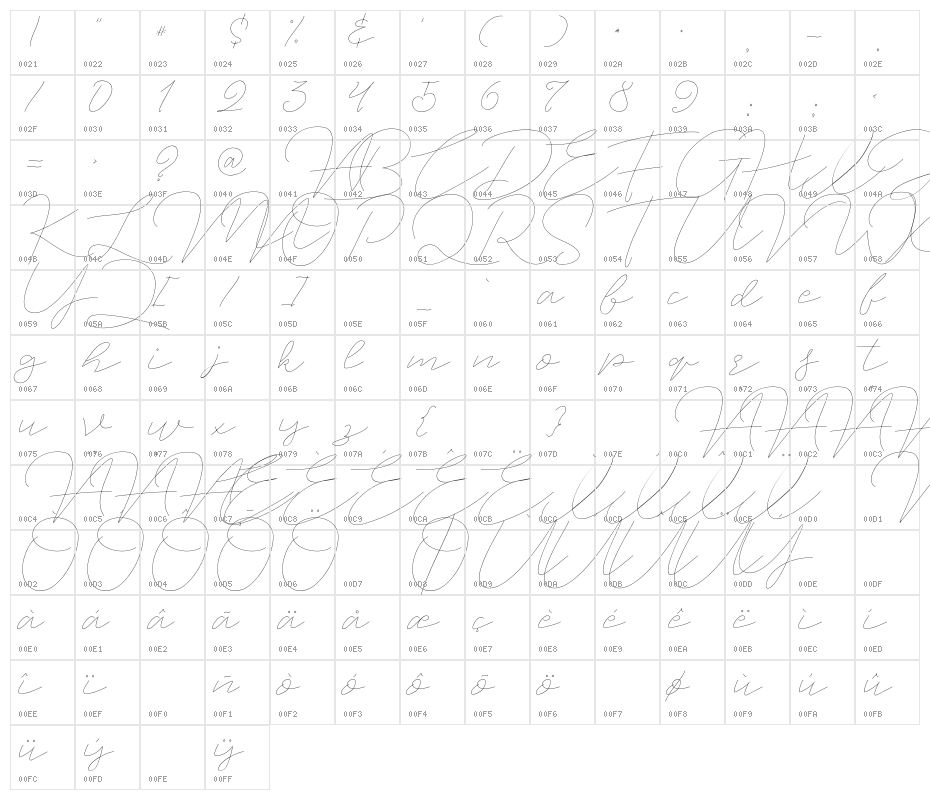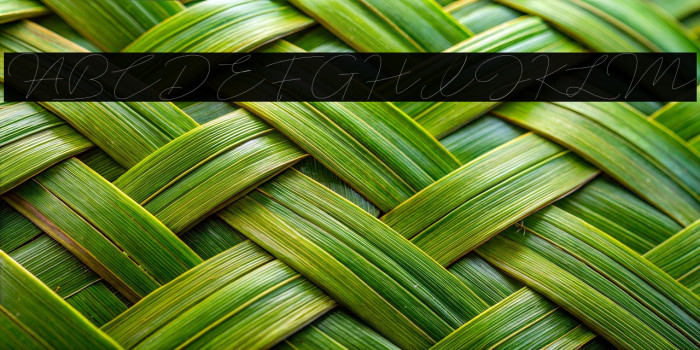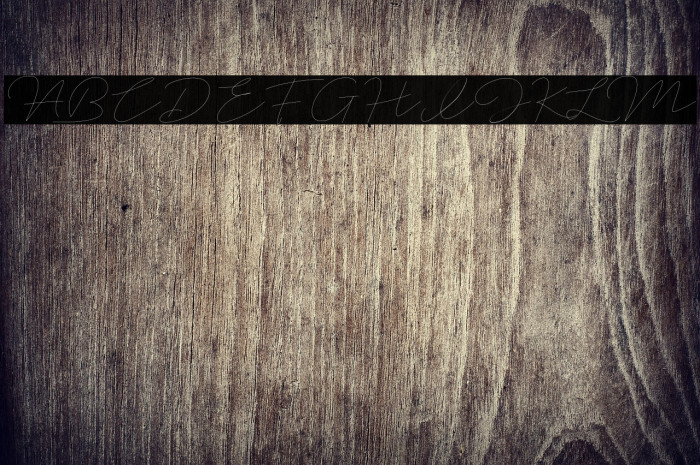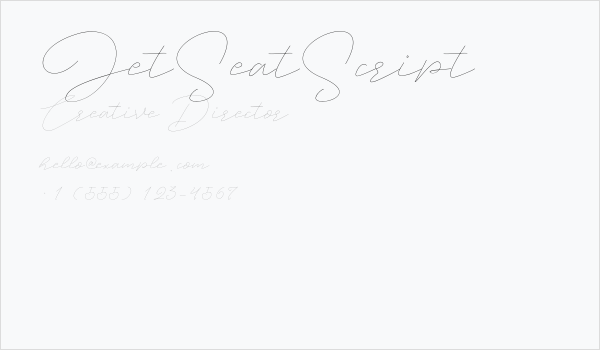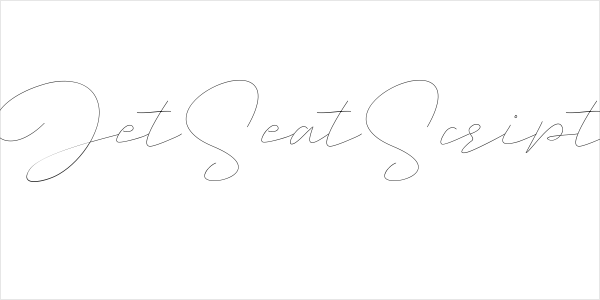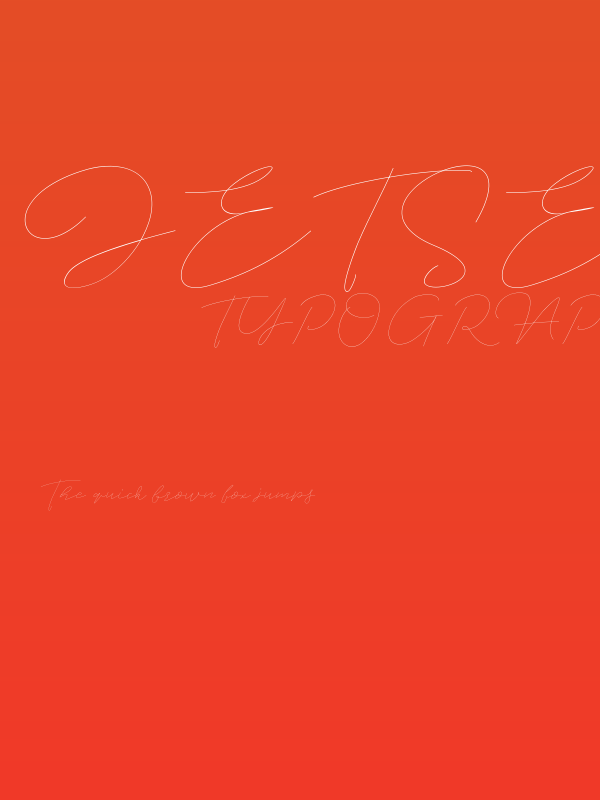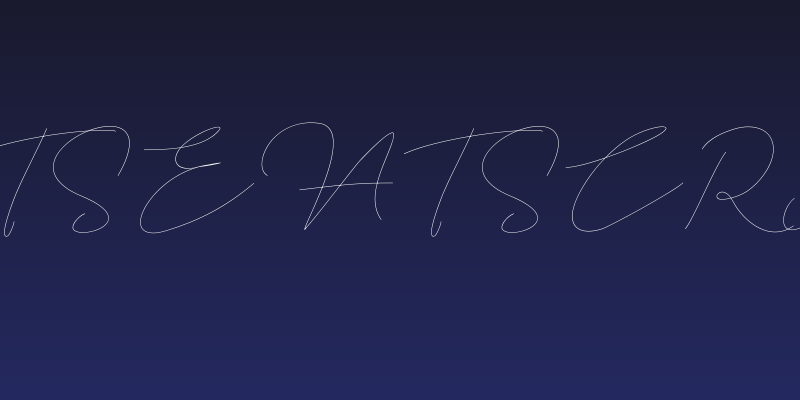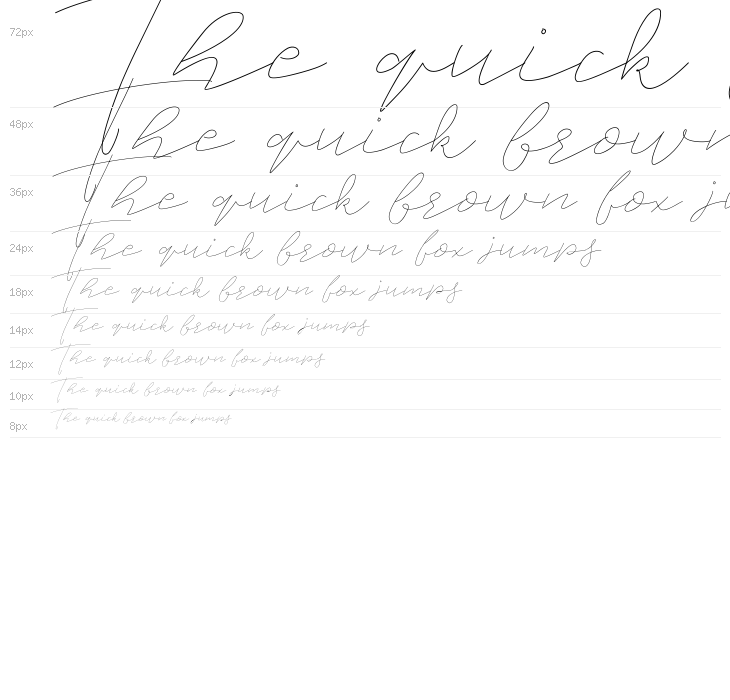
JetSeatScript Font
JetSeatScript Description
This elegant script font features flowing, cursive letterforms that mimic the fluidity of handwriting. The uppercase letters are gracefully connected, while the lowercase letters exhibit a smooth, continuous stroke. The numerals and special characters maintain the same fluid style, ensuring a cohesive look across all text. The font's delicate lines and subtle curves create a sense of sophistication and charm, making it ideal for projects that require a personal touch. Its balanced proportions and consistent slant enhance readability, while the overall aesthetic exudes a sense of elegance and refinement.
| Overall Style | Elegant |
| Use Case | Logos, Invitations, Personal Branding |
| Proposed Projects | Ideal for wedding invitations, greeting cards, personal branding, and elegant stationery. |